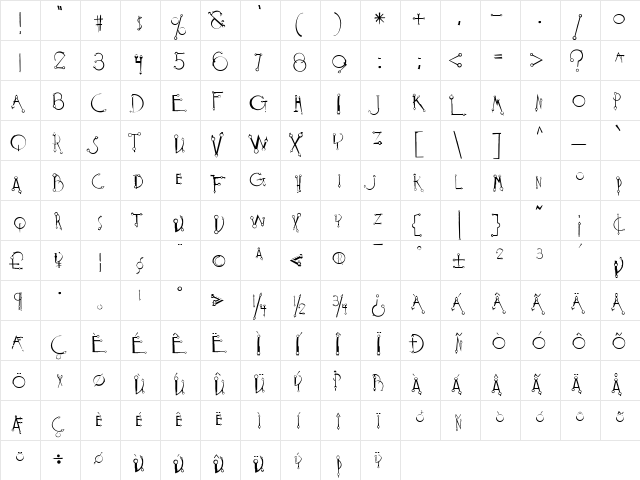
EpicureDecorative Medium
Design Context for EpicureDecorative Typeface
EpicureDecorative is built around its visual character rather than neutral utility — its distinctive forms are designed to make an impression at display sizes.
Font Pairing: Pair with a clean neutral sans-serif for body copy to let EpicureDecorative's character lead without overwhelming the composition.
Pro Tip: Treat EpicureDecorative as the centrepiece of your typographic hierarchy. One strong heading set in a decorative face can carry an entire layout.